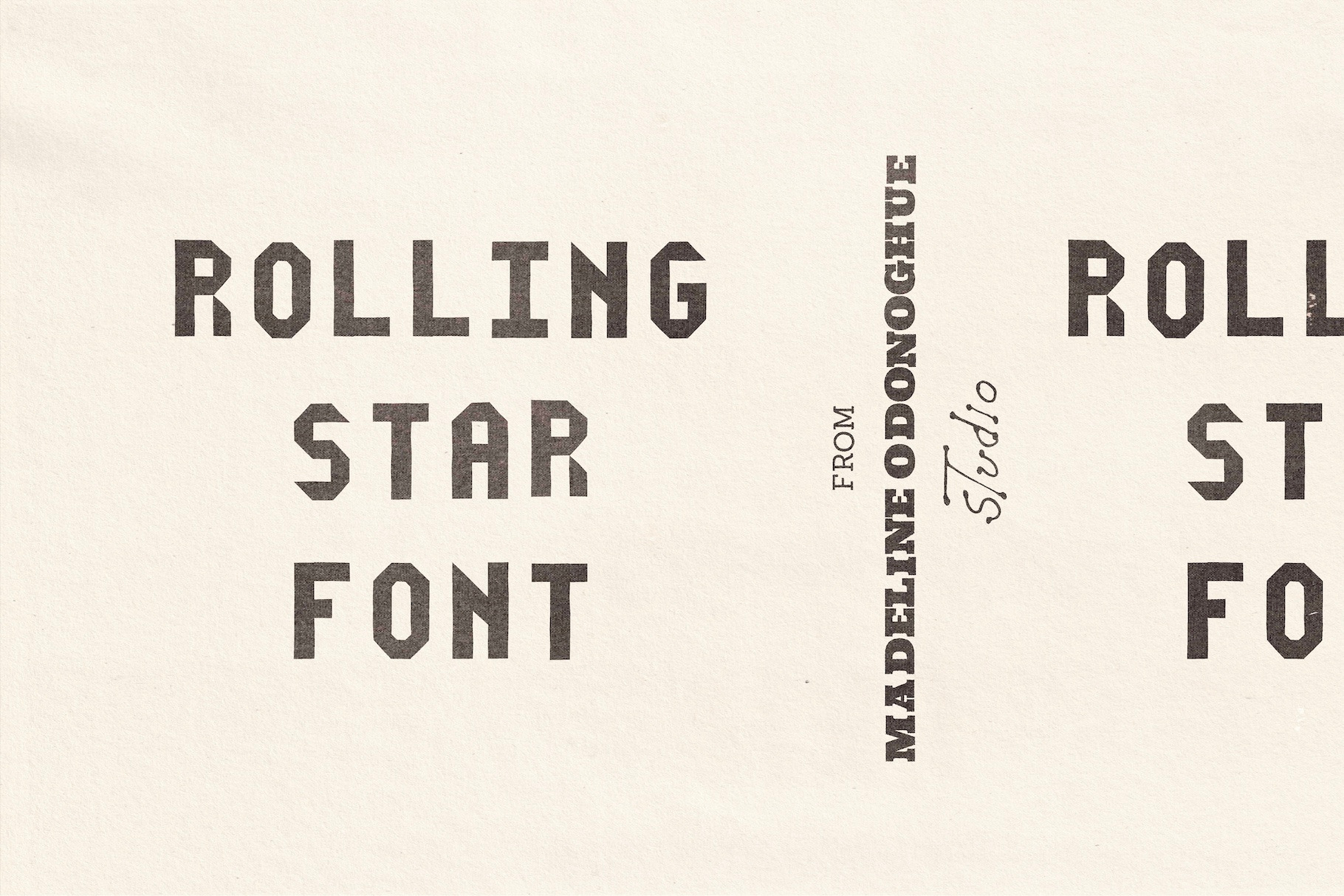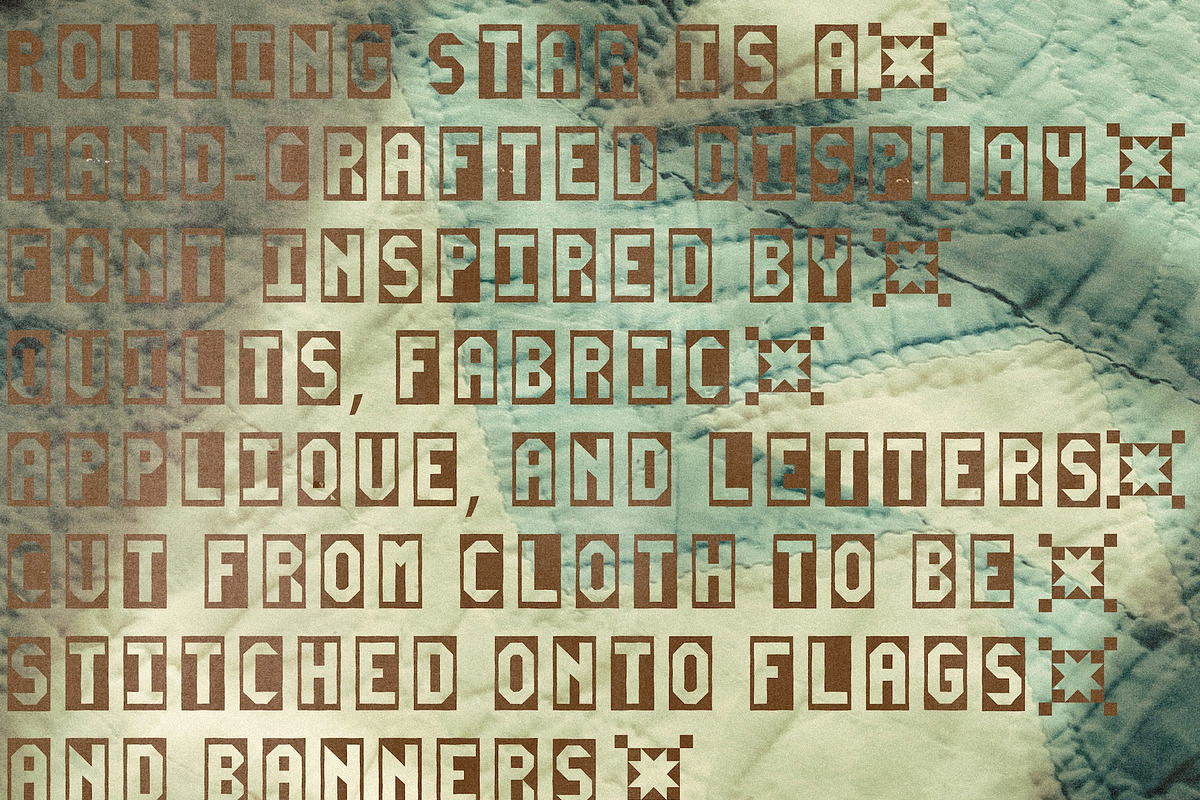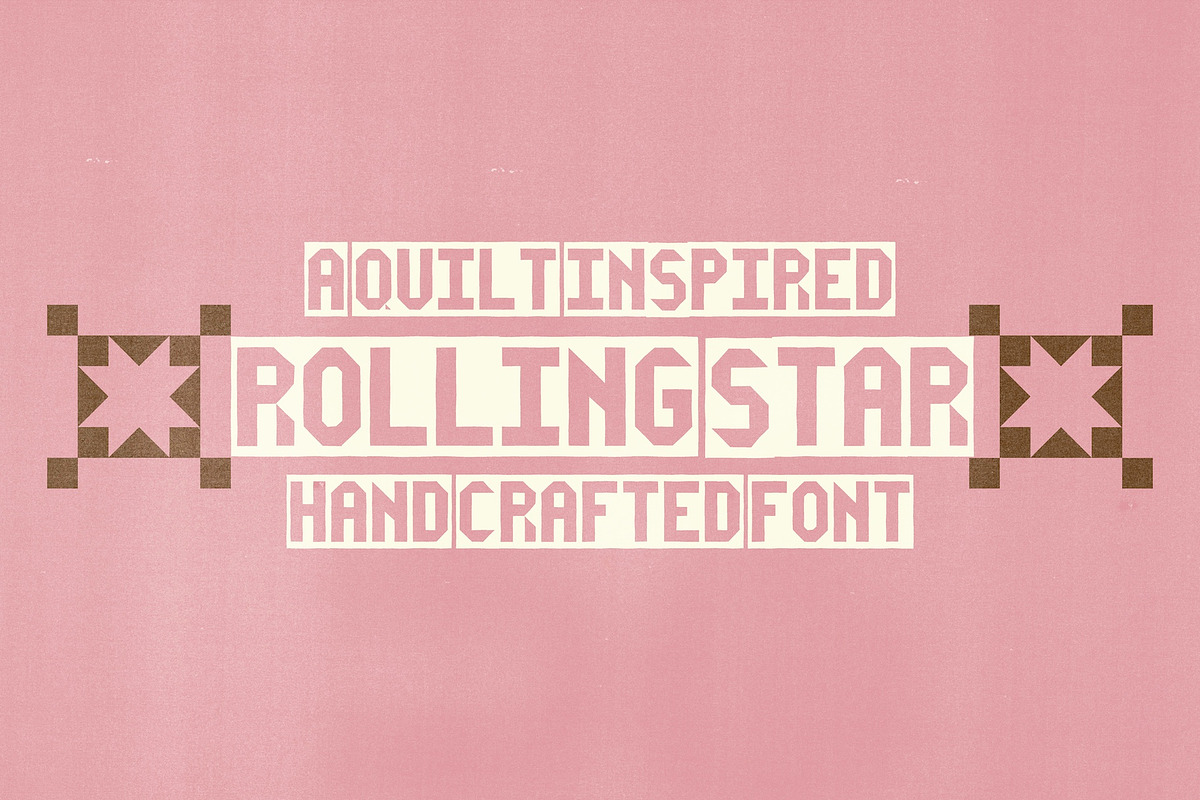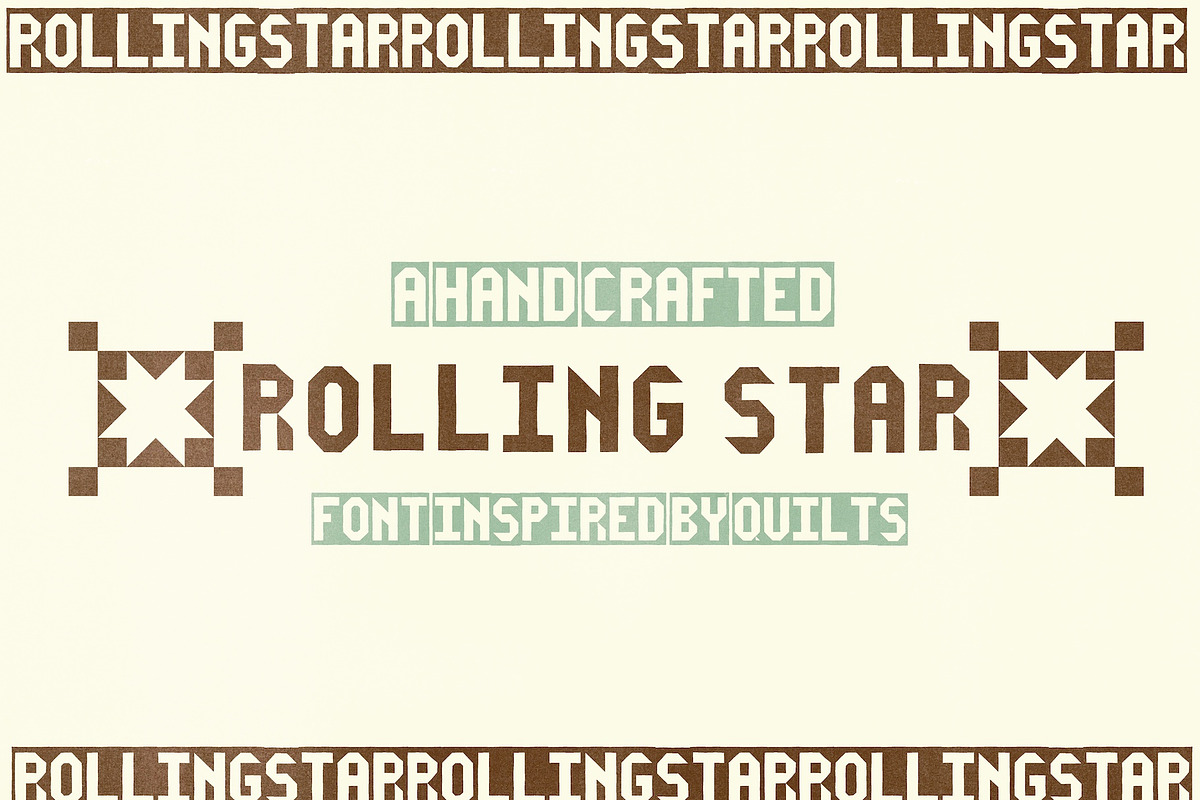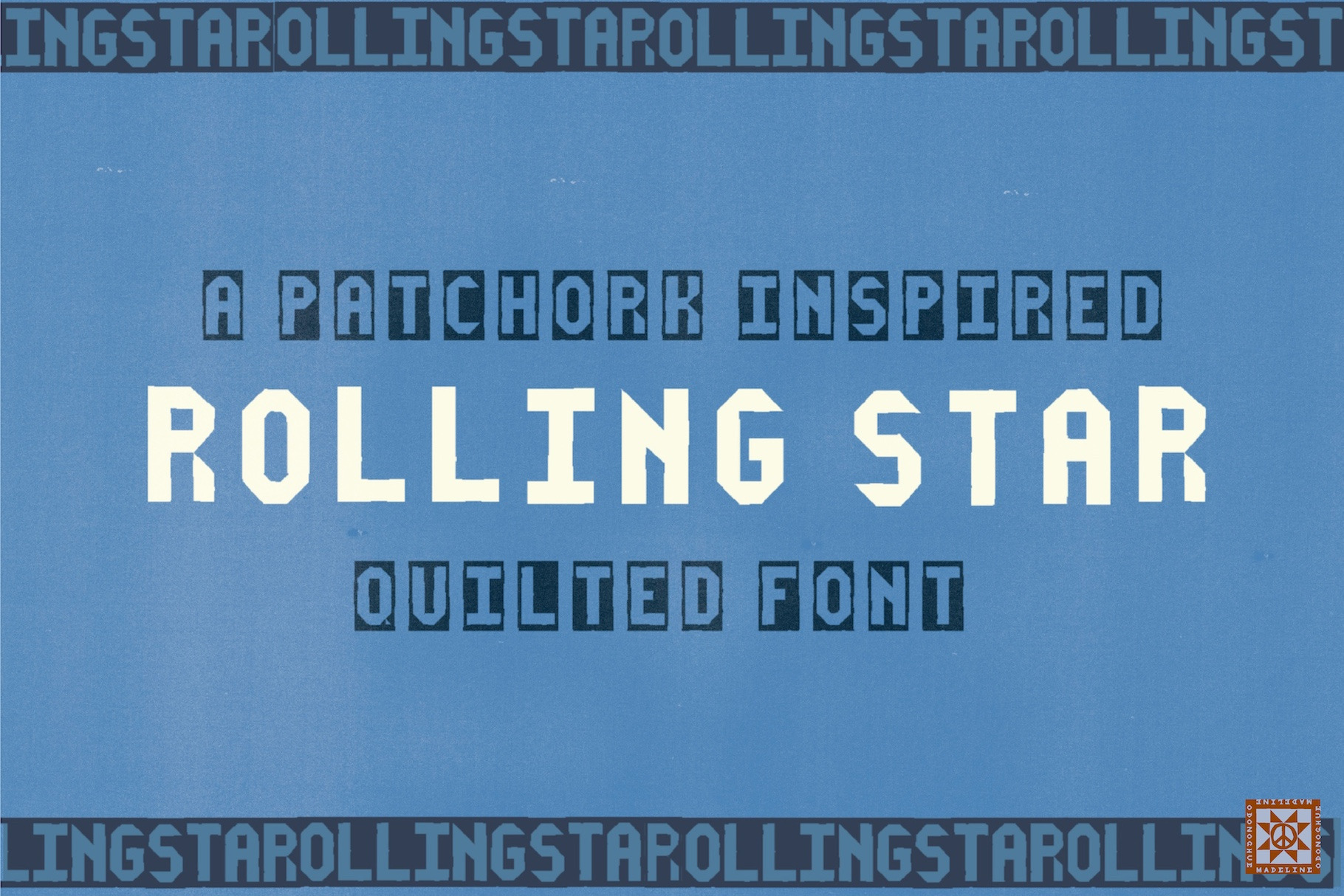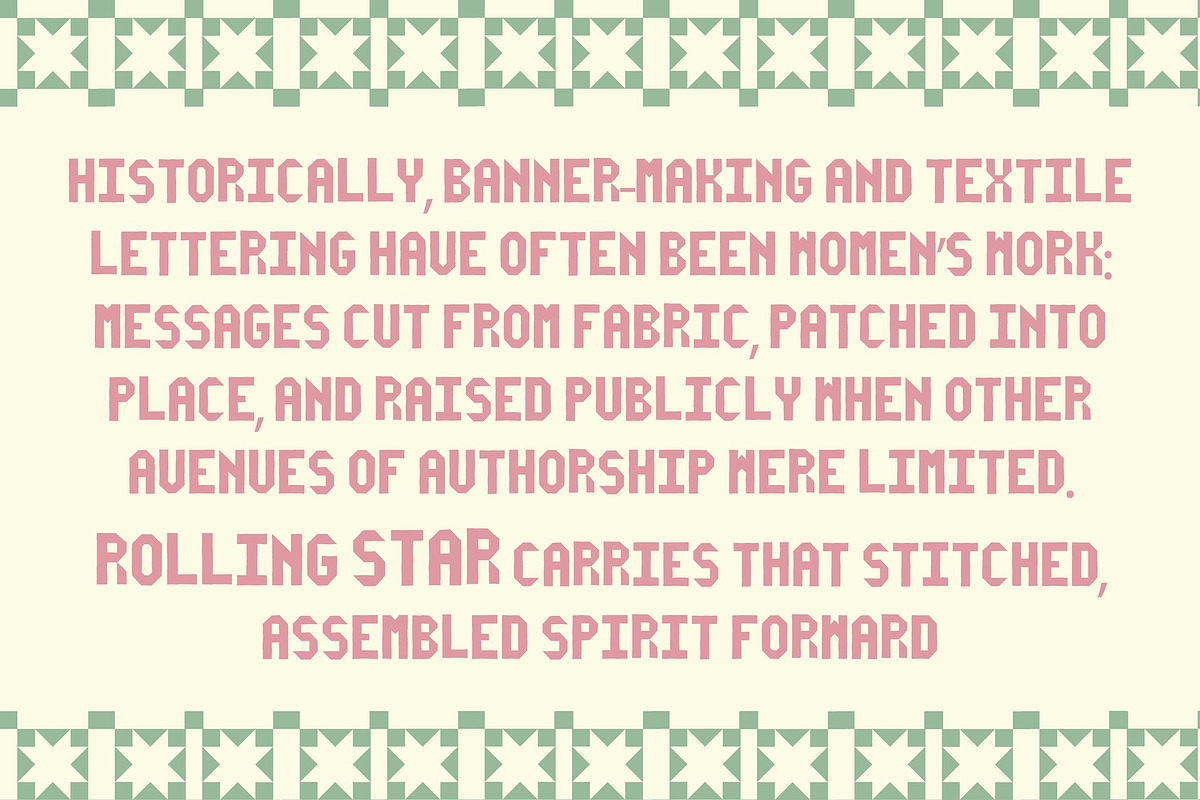
Rolling Star Hand Crafted Font
Rolling Star is a handcrafted display font inspired by quilting, fabric appliqué, and letters cut from cloth to be stitched onto flags and banners. This quilt-style font captures the feeling of handmade textile lettering — words assembled piece by piece, sewn into surface, and carried with intention.
Inspired by fibre arts, folk craft, and vintage banner typography, Rolling Star feels constructed rather than drawn. Each letter has slightly irregular edges and purposeful imperfections, echoing hand-cut fabric, patchwork seams, and visible fibres.
This is not a polished corporate font — it’s a tactile, human display typeface with character, texture, and warmth.
Quilt-inspired branding
Patchwork graphics and textile design
Vintage-style sports banners and flags
Folk posters and handmade signage
Screen-printed merch and album artwork
Craft-based brands and nostalgic design projects
Rolling Star brings a fabric-inspired, distressed aesthetic to modern design while staying bold and readable as a display font.
Uppercase A–Z (clean, unframed letterforms)
Lowercase a–z (letters set inside quilt-style block backgrounds)
Alternate W & w letterforms — accessible via alternates in your design software
Design Details Rolling Star is intentionally imperfect. Slight wobble, uneven alignment, and subtle irregularities are part of the design — reflecting authentic handmade quilting and patchwork construction.
If you’re looking for a quilt font, fabric-inspired typography, or a handmade display typeface with vintage character, Rolling Star brings texture and personality to your work.